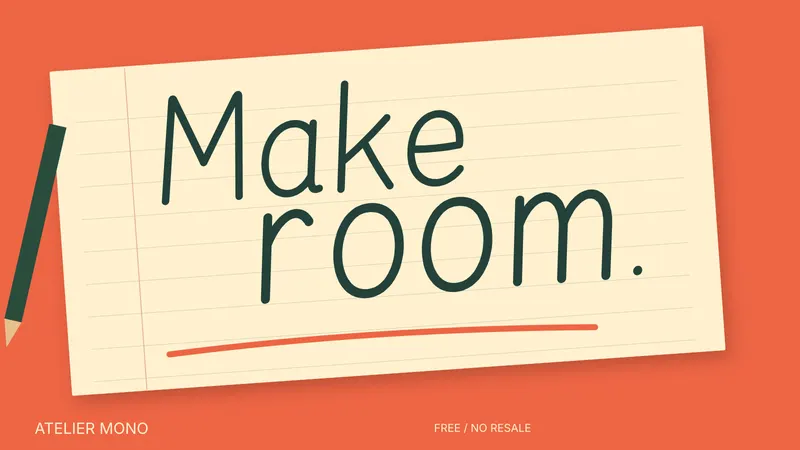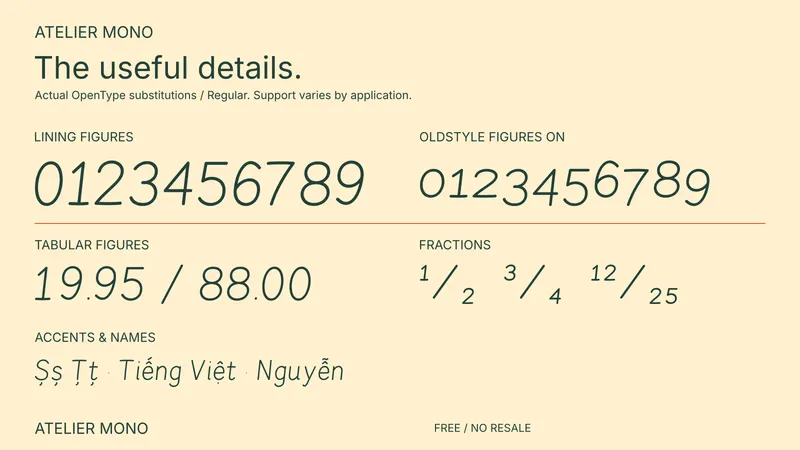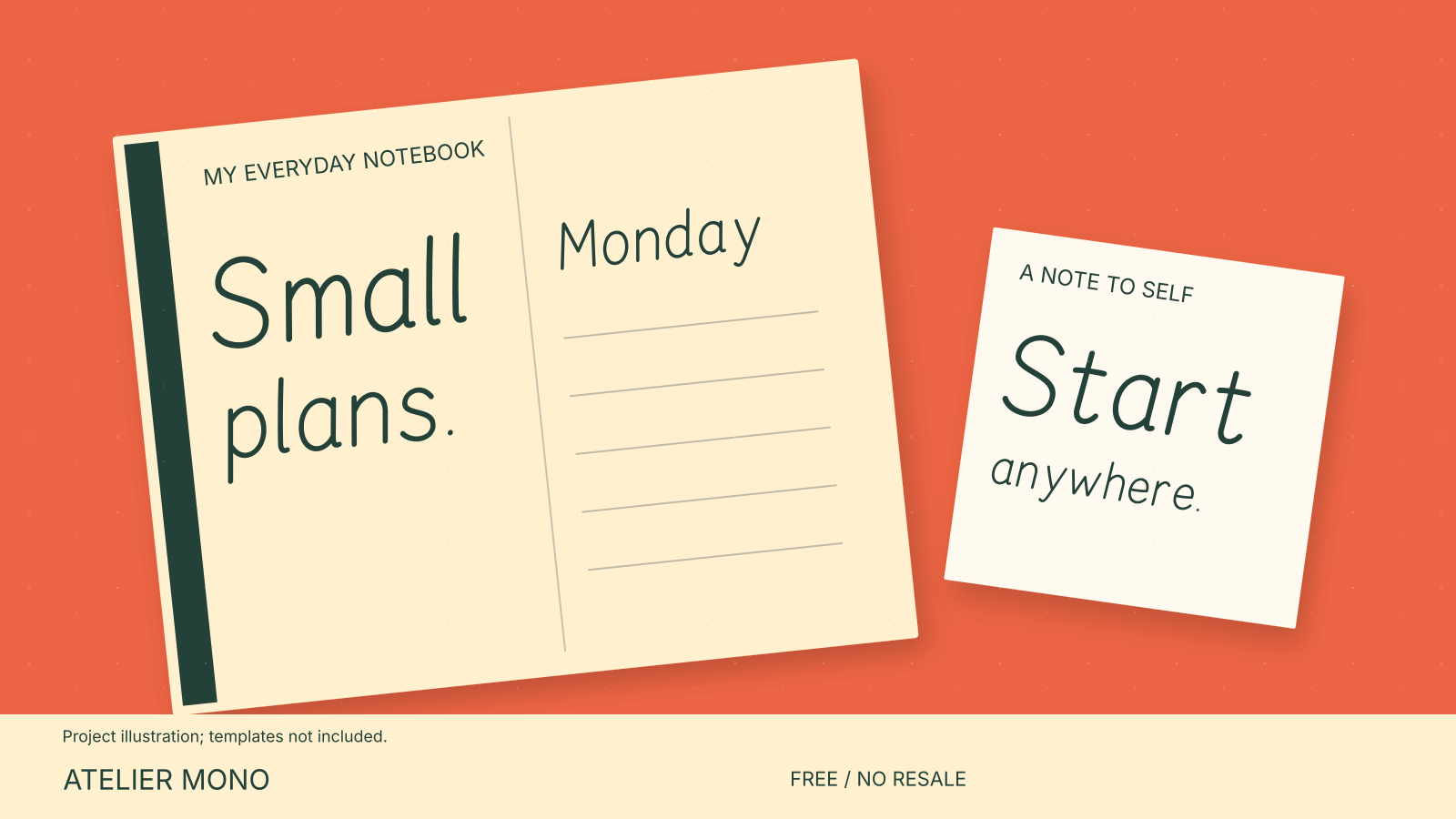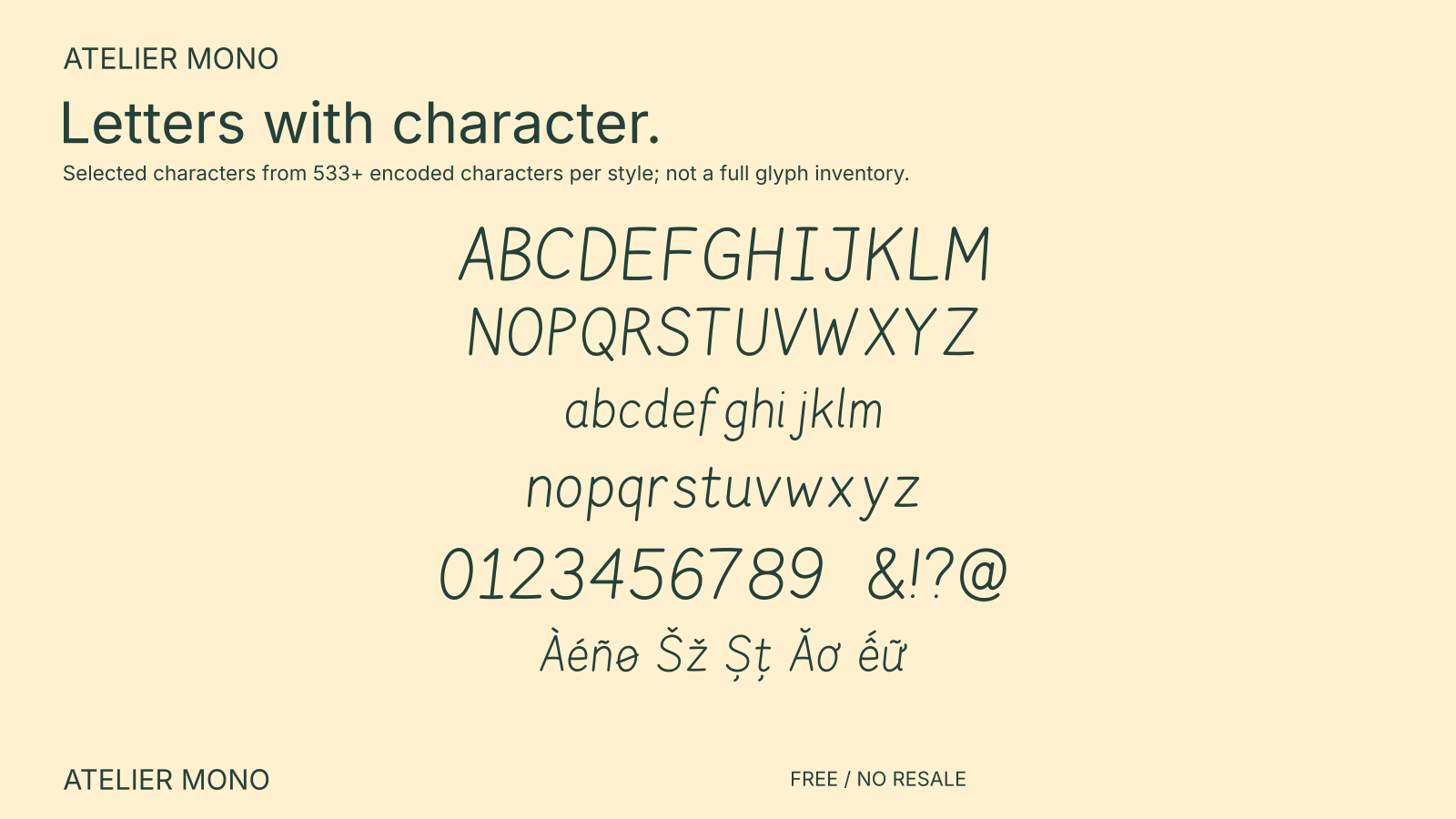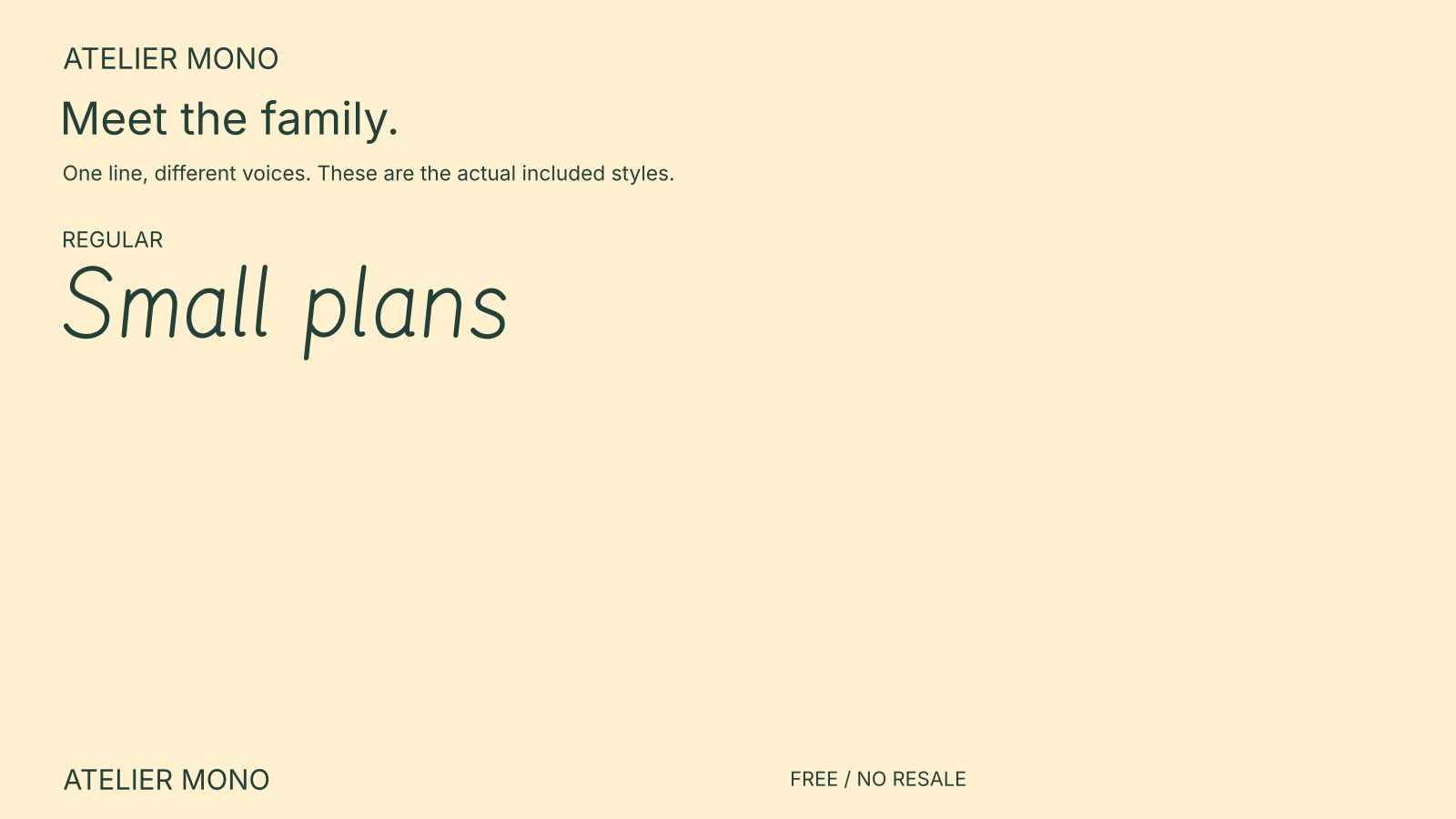
Atelier Mono - Free Font
Rounded monoline lettering for journal titles and personal notes.
- Standard ligatures (liga) — all paid styles.
- Ornaments (ornm) — all paid styles.
- Stylistic set 1 (ss01) — all paid styles.